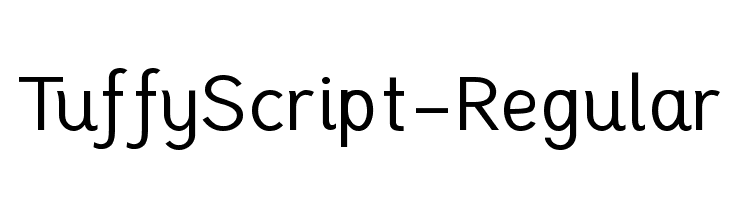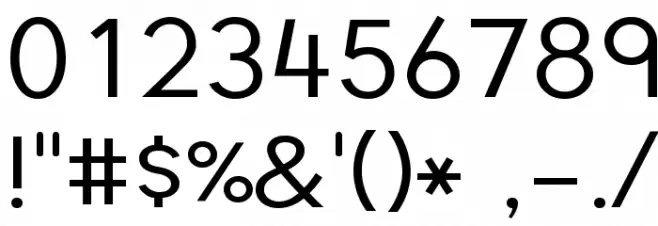
TuffyScript-Regular Font
✎ Sans Serif
TuffyScript-Regular Description
This font presents a clean and modern aesthetic with a straightforward sans-serif design. The characters are well-balanced, featuring uniform stroke widths that contribute to a harmonious appearance. The uppercase letters are bold and assertive, while the lowercase letters maintain a friendly and approachable feel. The numerals are clear and easy to read, making them suitable for various applications. Special characters are crafted with precision, ensuring consistency across the typeface. Overall, this font is versatile, offering a professional yet accessible look that can be adapted to numerous design contexts.
| Categories | Sans Serif |
| Use Case | Headlines, Body text, Logos |
| Proposed Projects | Ideal for branding, web design, editorial layouts, and corporate materials. |